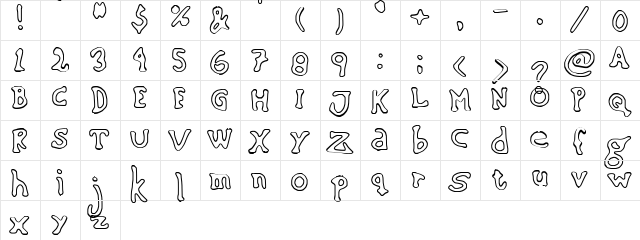
Sinking Ship (outline) Regular
Design Context for Sinking Ship (outline) Typeface
Sinking Ship (outline) brings ornamental detail and strong personality to headlines and identities, where visual impact matters more than quiet functionality.
Font Pairing: Pair with a clean neutral sans-serif for body copy to let Sinking Ship (outline)'s character lead without overwhelming the composition.
Pro Tip: Treat Sinking Ship (outline) as the centrepiece of your typographic hierarchy. One strong heading set in a decorative face can carry an entire layout.